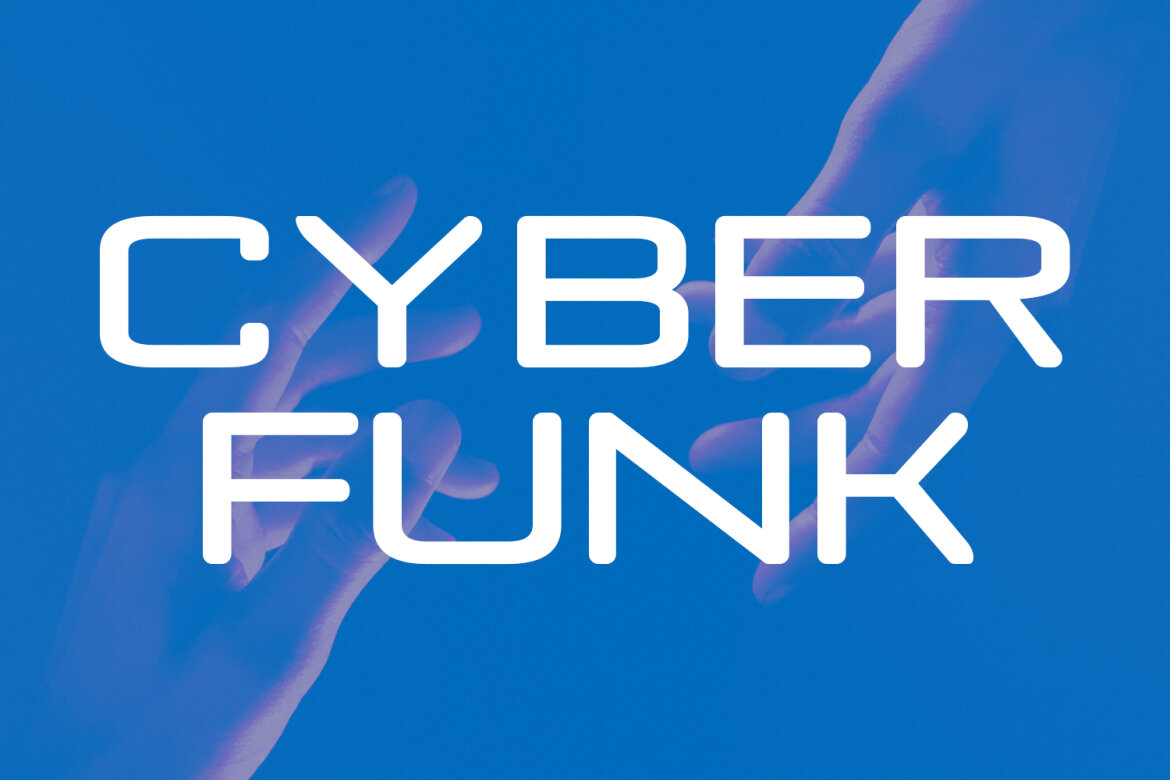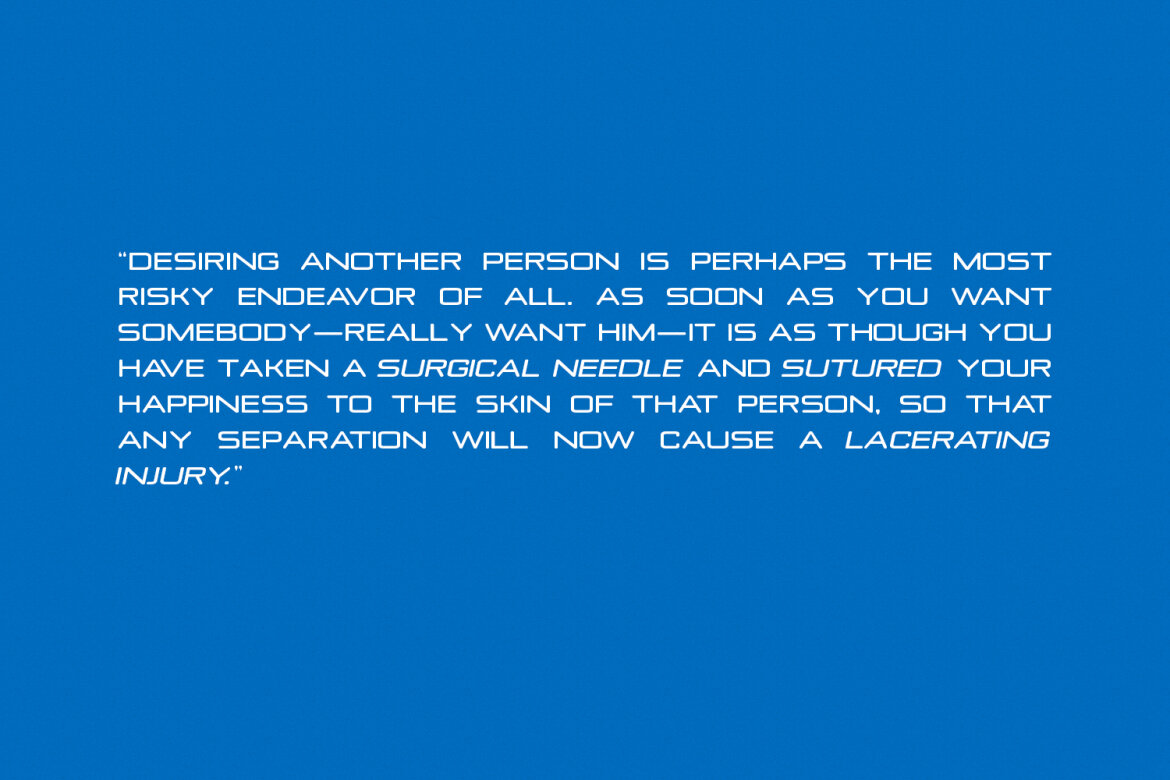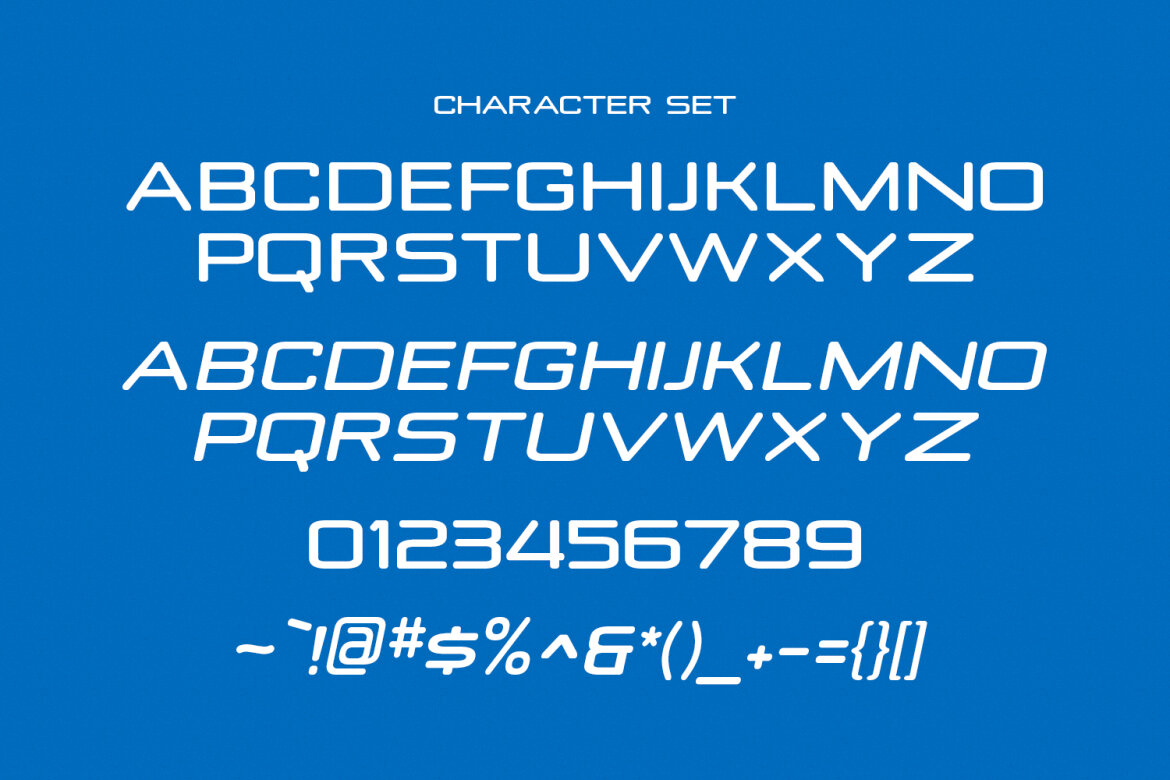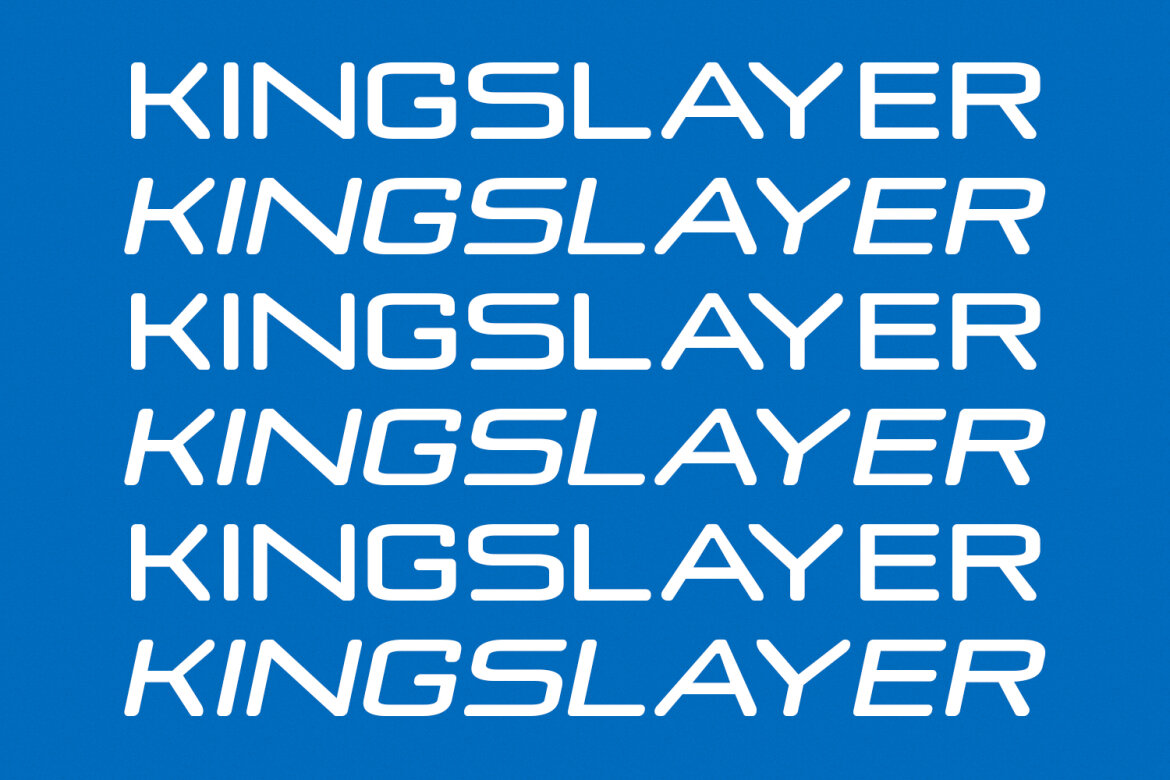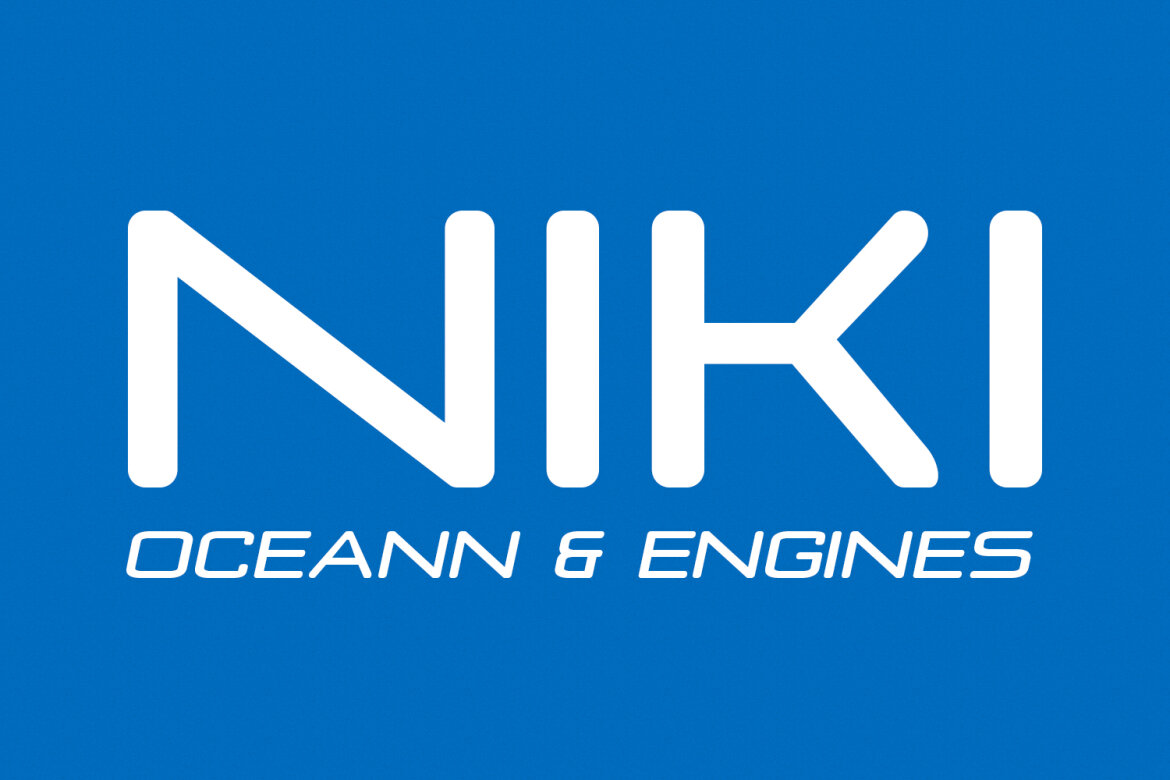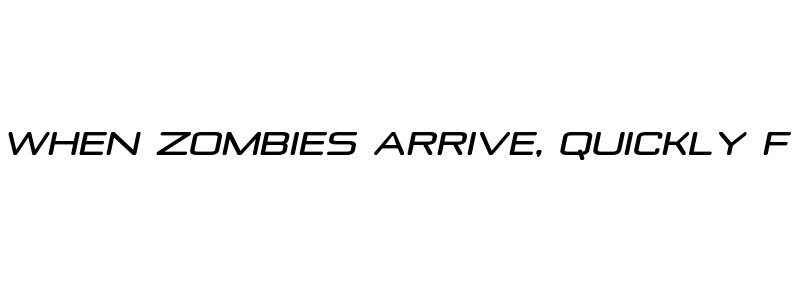
Calrigo Expanded FREE Font
Calrigo is a classic squares wide or extended display font. medium stroke and slanted, fun character with a bit of ligatures and alternates. To give you an extra creative work. Calrigo font support multilingual more than 100+ language. This font is good for logo design, Social media, Movie Titles, Books Titles, a short text even a long text letter and good for your secondary text font with script or serif. Make a stunning work with Calrigo font.